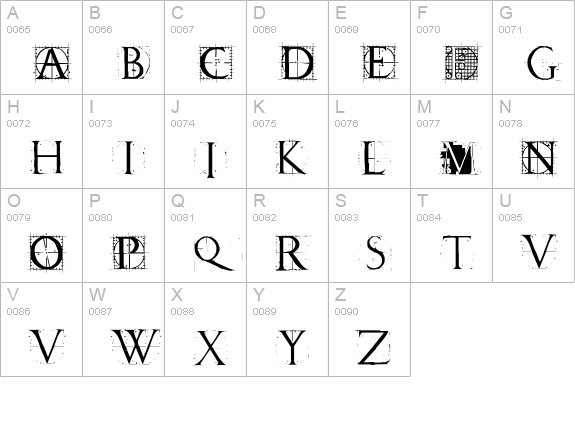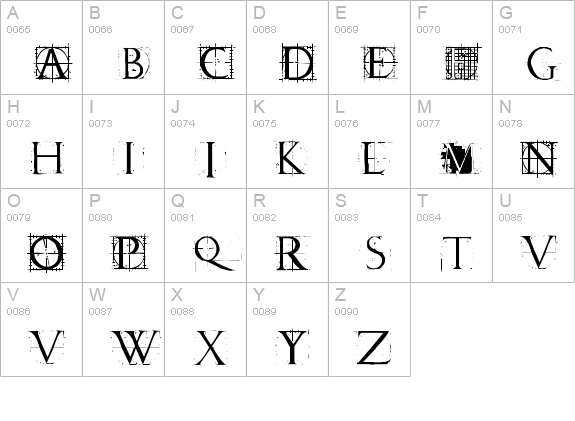
AFChampFleury is a sophisticated and elegant font that exudes a sense of grace and style. With its delicate curves and intricate details, this font is perfect for adding a touch of sophistication to any project. The AFChampFleury font is versatile and can be used for a variety of design purposes, from invitations and greeting cards to logos and branding. What makes AFChampFleury even more appealing is that it is available for free download at FontsMarket.com. This means that you can easily access this beautiful font and incorporate it into your designs without any cost. Don't miss out on the opportunity to enhance your projects with the timeless beauty of AFChampFleury font.